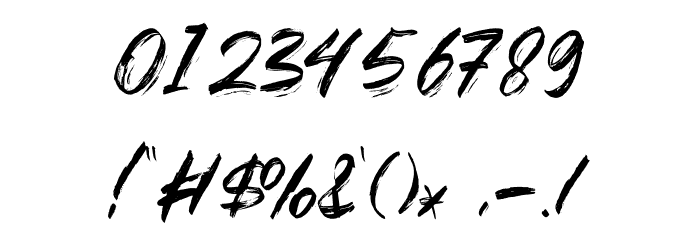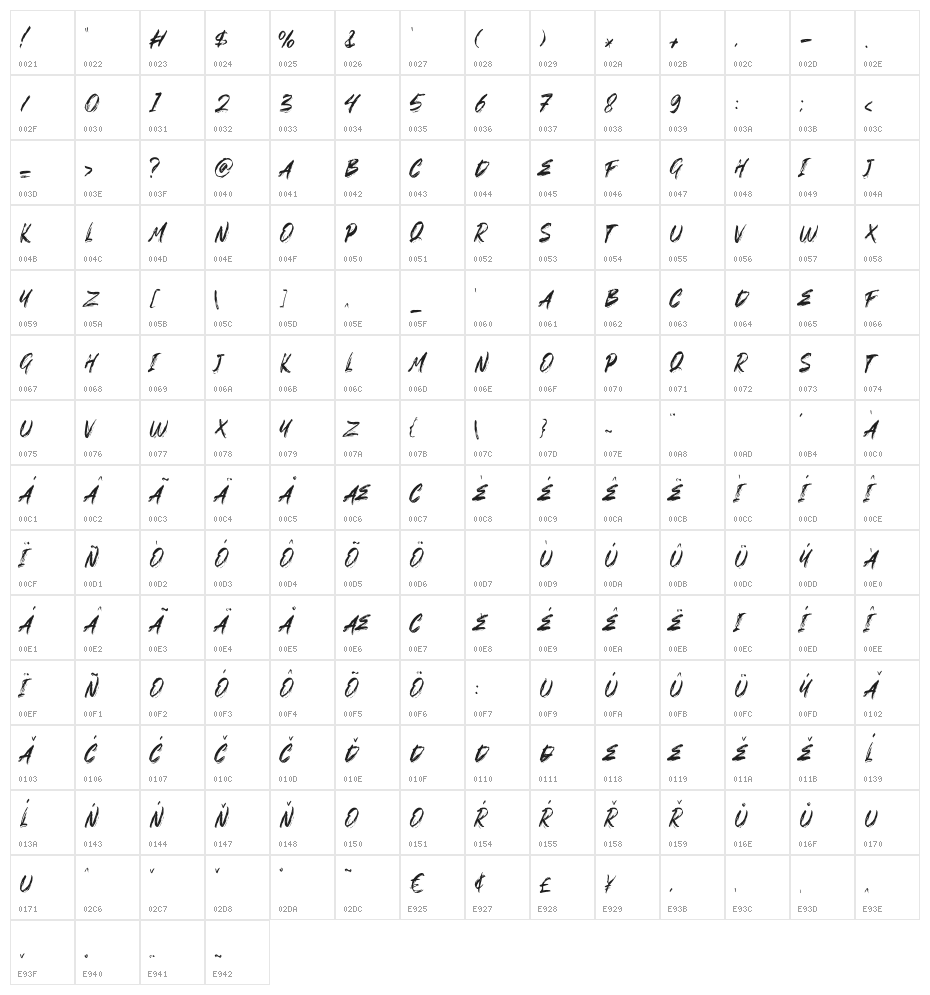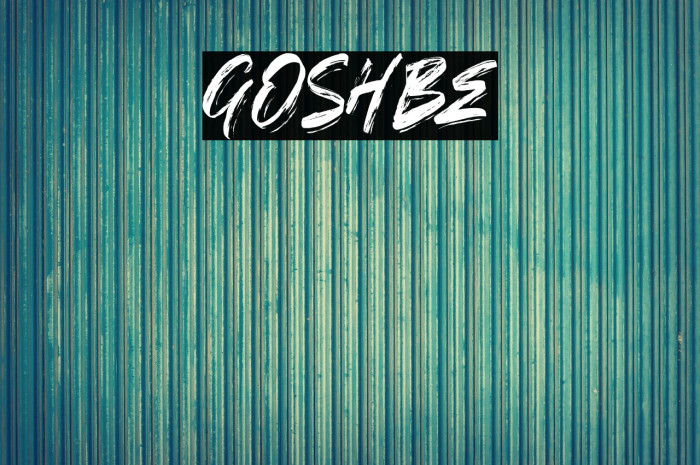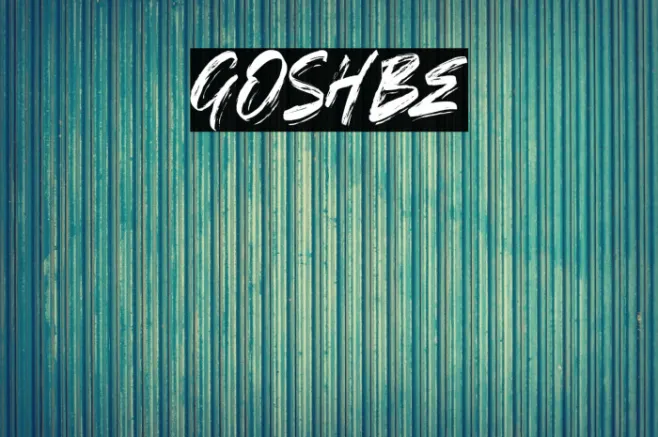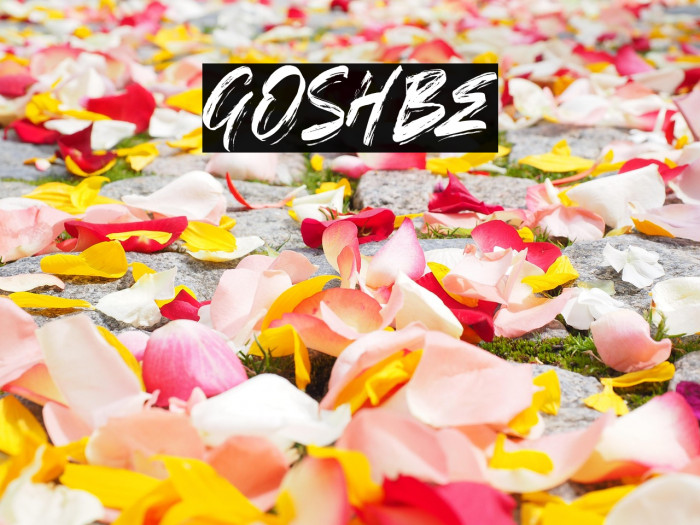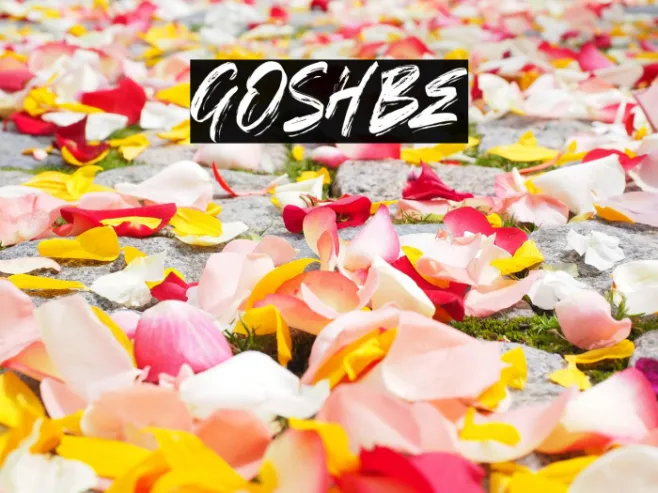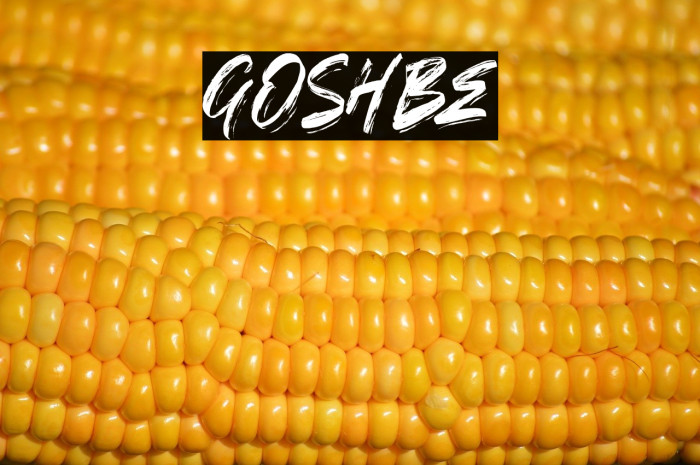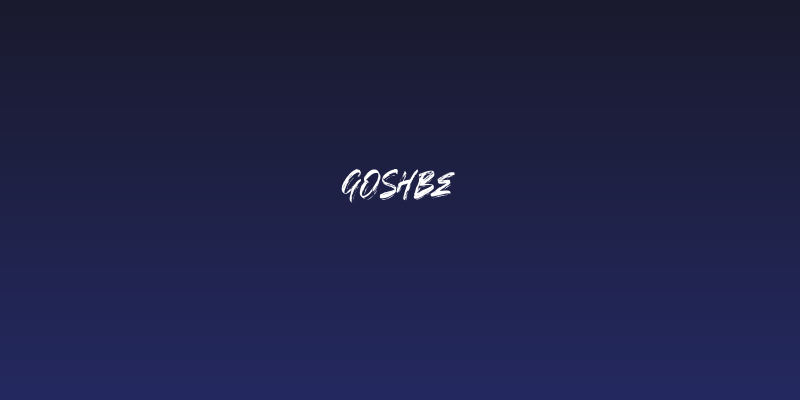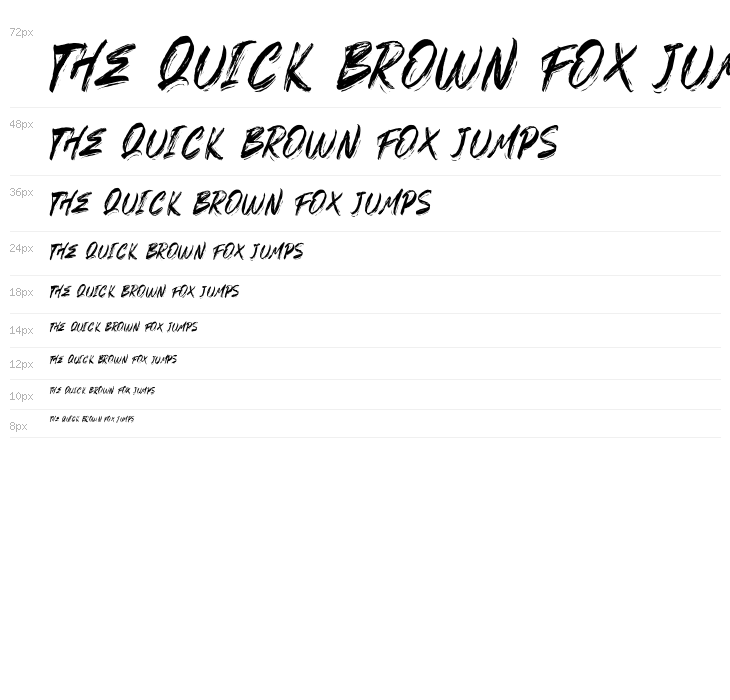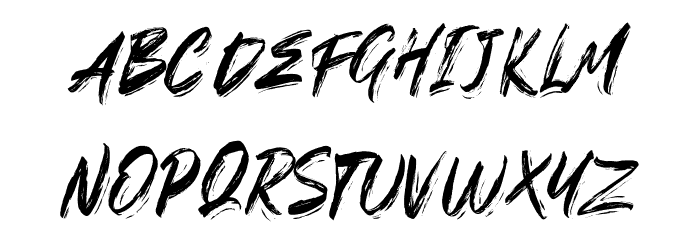
GOSHBE Font
GOSHBE Description
This font exhibits a bold and dynamic brush script style, characterized by its energetic and expressive strokes. The letters are crafted with a sense of motion, giving them a hand-painted appearance. The uppercase and lowercase characters maintain a consistent flow, while the numbers and special characters complement the overall aesthetic. The font's rough edges and varying stroke widths add a raw, artistic touch, making it ideal for projects that require a personal and creative flair.
Proposed ProjectsIdeal for branding, posters, album covers, and any creative project that seeks to convey energy and artistic expression.